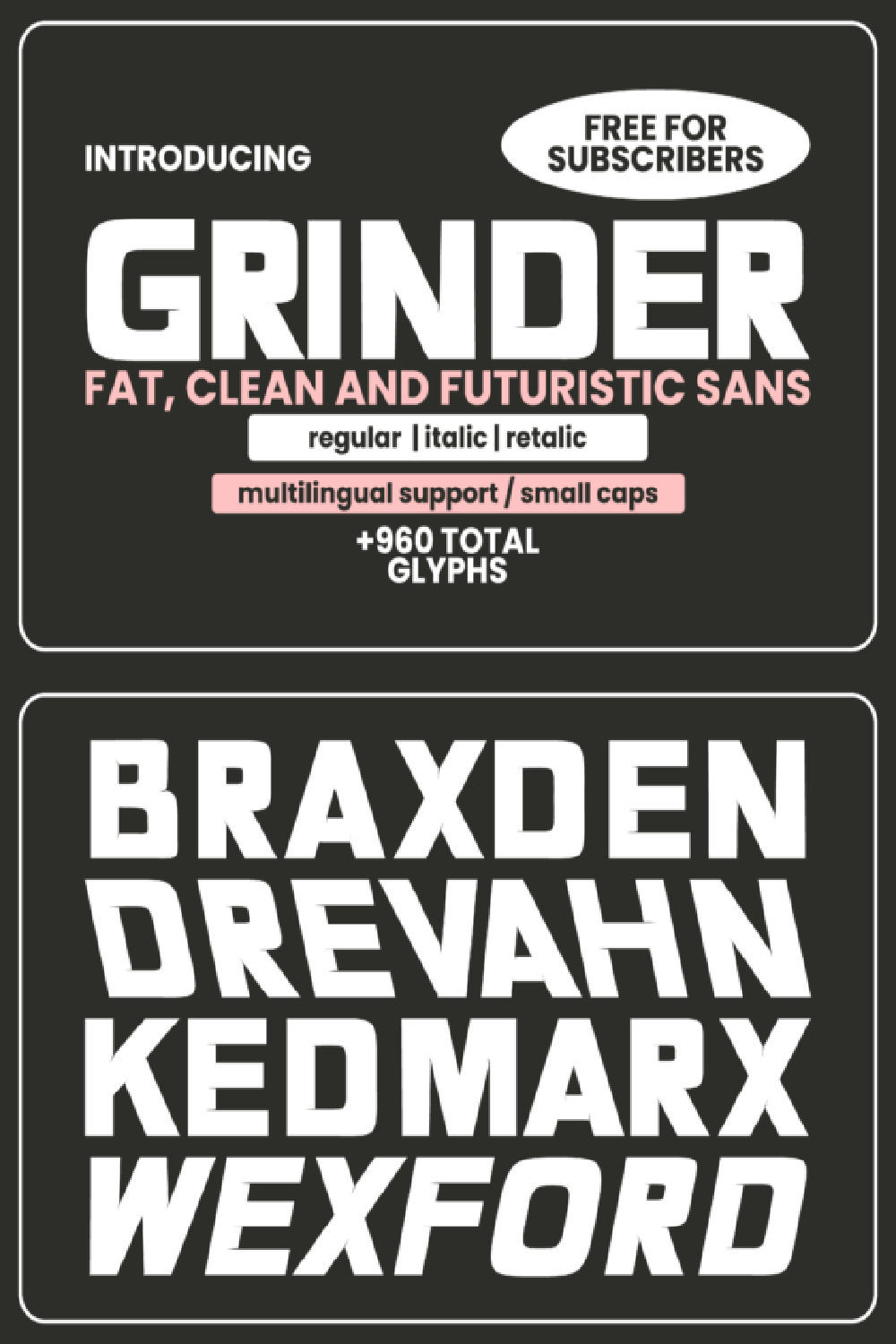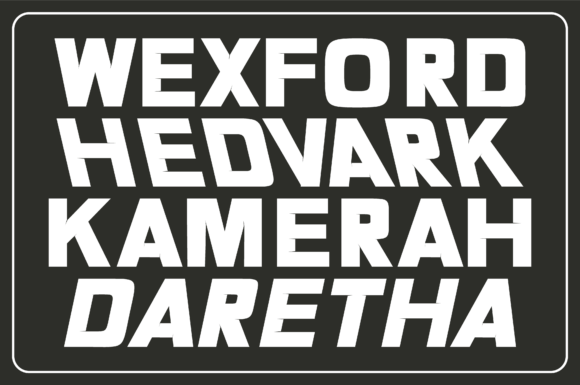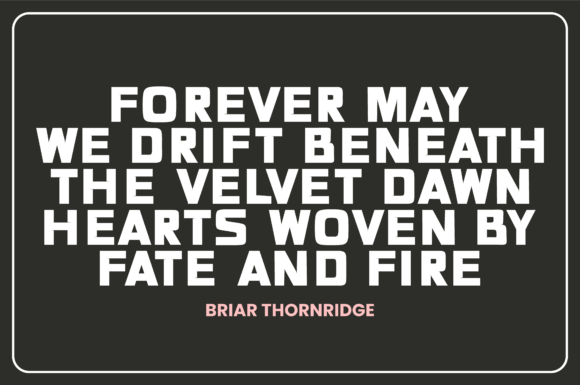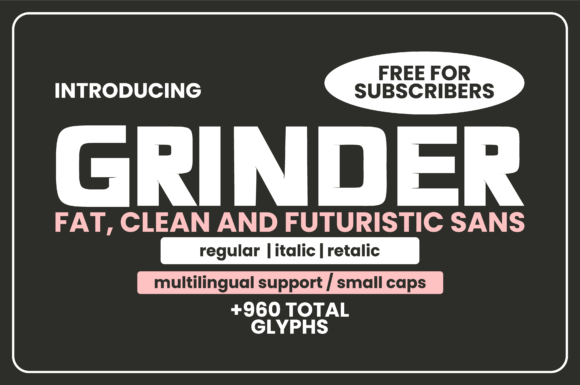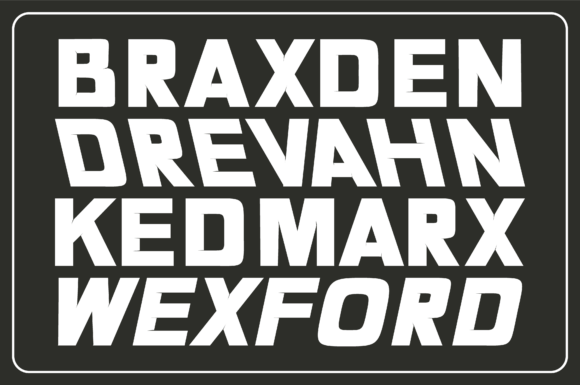
Grinder Font
About the Grinder Font
Experience the unique personality of Grinder Font, a font designed for impact. Immerse yourself in the world of typography with Grinder, an exquisite sans serif grotesque font collection. This magnificent assortment boasts clean, bold, geometrical structure inspired by the principles of German and Swiss design. Grinder encompasses Regular, Italic, and Retalic styles, offering versatile adaptability to an array of design canvases. Its sleek, elegant lines make it the quintessential choice for perfume labels, cosmetics packaging, magazine covers, and high-end poster designs. From manifestos and flyers to digestible social posts, Grinder breathes life into each word and phrase. The undeniable style and sophistication of this font will ensure it quickly solidifies a spot amongst your most cherished design tools.